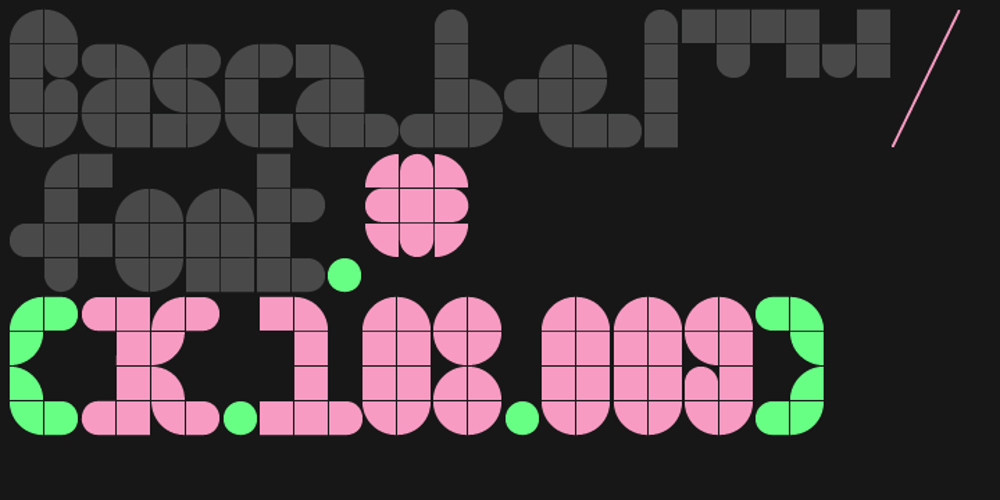
Cascabel Font Family was designed by Alejandro Paul, Ariel Di Lisio and published by Sudtipos. Cascabel contains 1 styles and family package options. Cascabel was built on a modular harmony and creates visibly maze-like geometric structures. When typeset in complete words, it conveys an unmistakable architectural approach to a design project. Ideal for magazines, posters or flyers, Cascabel is an alphabet functionally defined by a concept similar to that of building blocks. Designed by Ariel Di Lisio and digitized by Ale Paul.